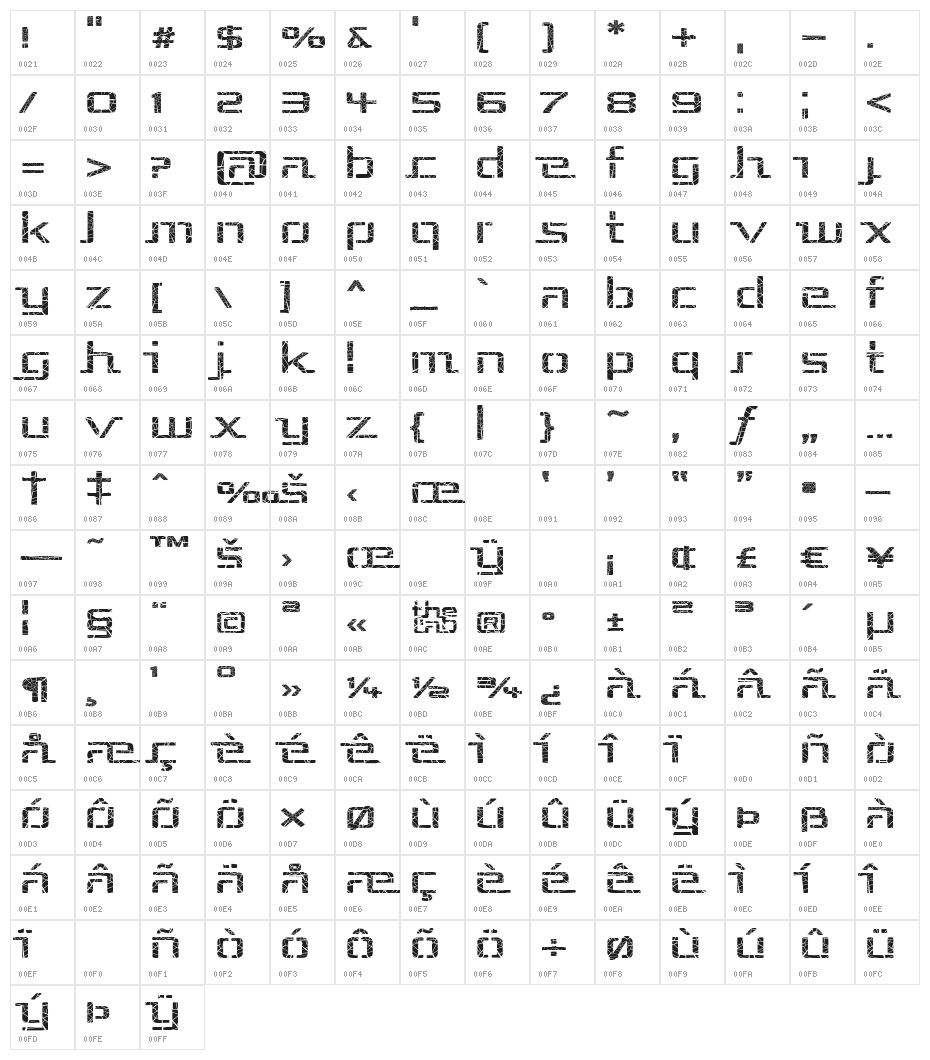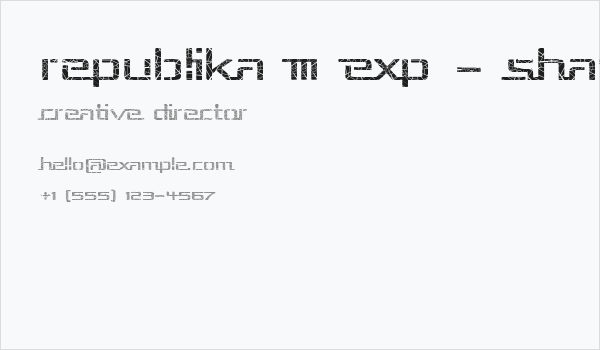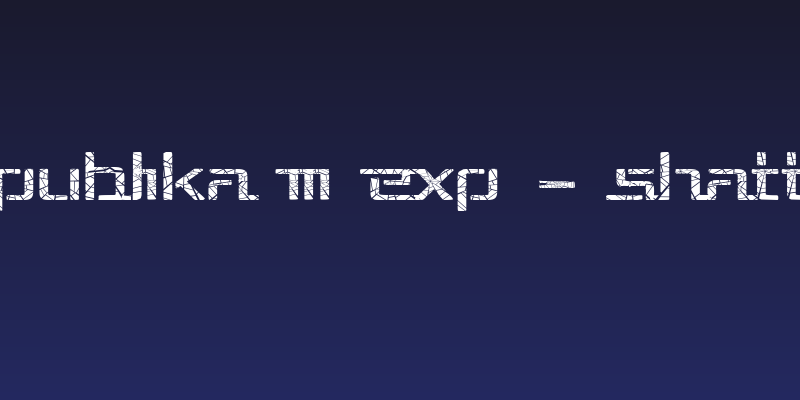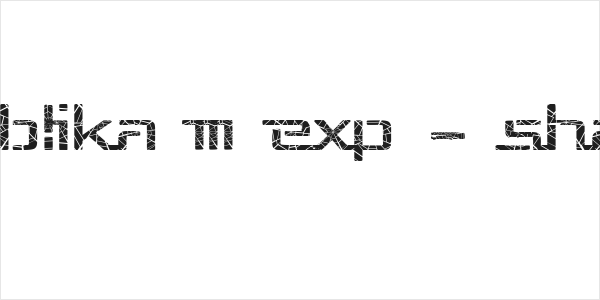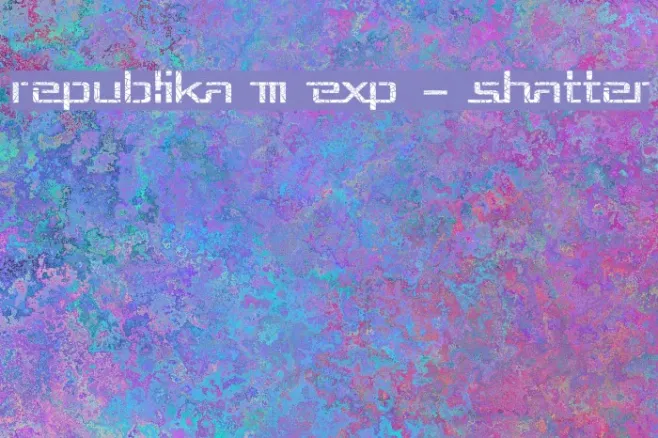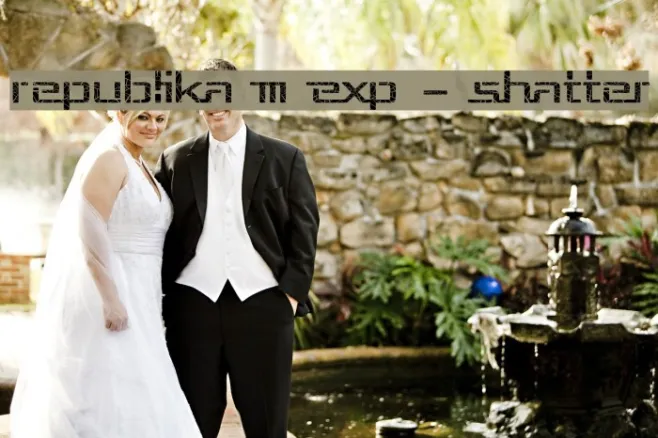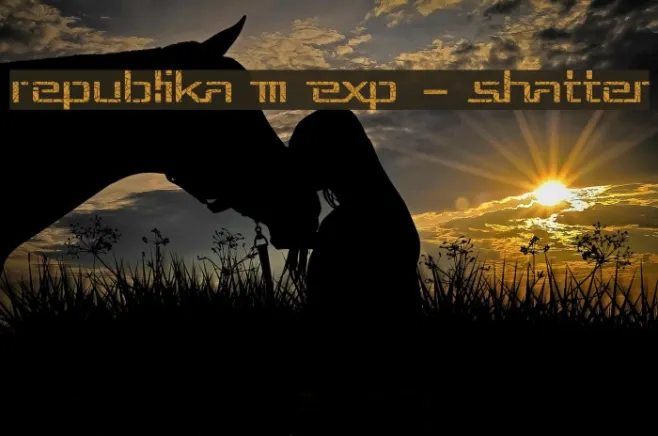
Republika III Exp - Shatter Font
Republika III Exp - Shatter Description
This font features a unique shattered effect, giving each character a fragmented and dynamic appearance. The geometric design is consistent across uppercase, lowercase, numbers, and special characters, creating a cohesive yet striking visual style. The broken glass-like texture adds a sense of movement and energy, making it ideal for projects that require a bold and unconventional look. The font maintains legibility despite its intricate design, with each letterform clearly distinguishable. Its modern and edgy aesthetic is perfect for creative and artistic applications.
| Overall Style | Modern, Edgy |
| Proposed Projects | Ideal for album covers, posters, video game graphics, and edgy branding projects. |